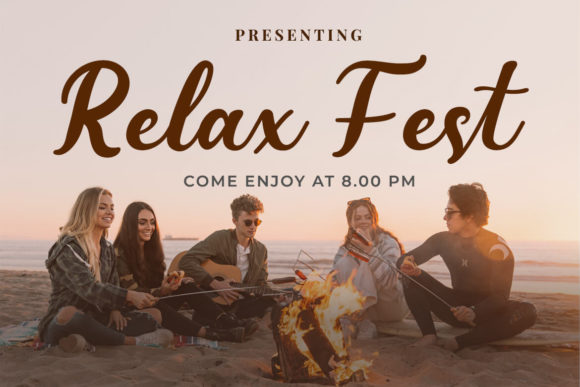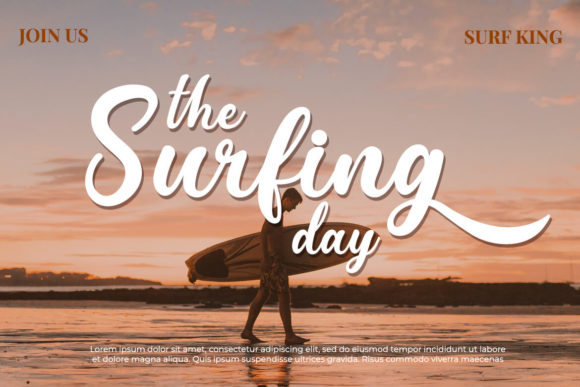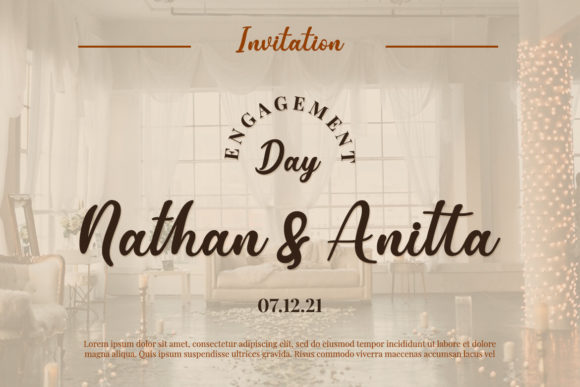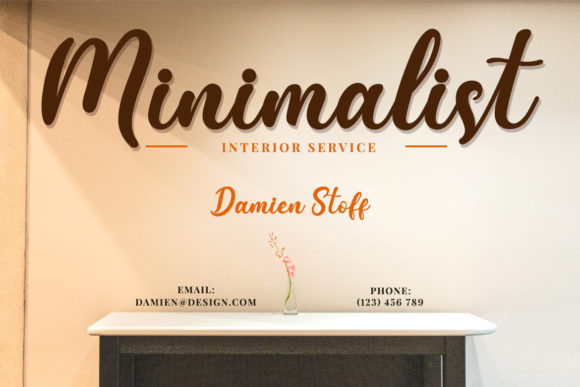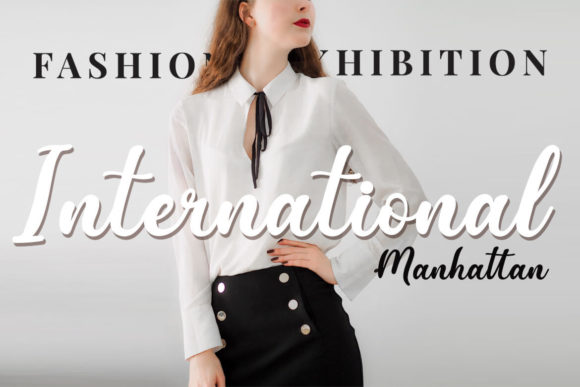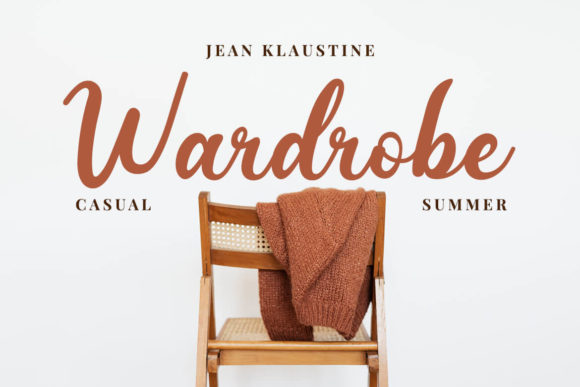
The Perfect Touch of Whimsy: Introducing the Coffistylove Font
As a designer, have you ever found yourself staring at a blank page, searching for the perfect font to bring your creative vision to life? I know I have. The moment of discovery when you stumble upon the perfect font is like a breath of fresh air – it’s exhilarating and sets the tone for a beautiful design. For me, that moment came when I discovered the enchanting Coffistylove Font.
This delicate, elegant, and flowing handwritten font is a true masterpiece. With its beautiful and well-balanced characters, Coffistylove Font is the perfect addition to any design project. Whether you’re creating a wedding invitation, a birthday card, or a branding package, this font is sure to add a touch of whimsy and sophistication. And with its PUA encoding, you’ll have access to all of the glyphs and swashes you need to create truly unique designs.
Coffistylove Font Key Features
- Font Family: Coffistylove Font offers a unique and modern script font style, perfect for creative and artistic projects.
- Unique Characteristics: Features a unique blend of modern and vintage elements, with a focus on elegance and sophistication.
Coffistylove Font Review
As a designer, I was excited to dive into the Coffistylove Font and see if it would make my projects stand out. Here’s my honest review.
- ✨ The unique, cursive design is perfect for adding a touch of whimsy to headers and titles. It’s great for creating a friendly, approachable atmosphere.
- ✨ The font is highly legible, even at smaller sizes, making it suitable for a wide range of applications, from web design to print materials.
- ✨ The font’s high x-height gives it a balanced, modern look that works well in both digital and physical formats.
- ⚠️ While the font is legible, it may not be the best choice for large blocks of text, as the cursive design can make it difficult to read in long sections.
- ⚠️ The font may not be suitable for formal or professional applications, as its playful design may come across as too casual.
Overall, I think Coffistylove Font is a great addition to any designer’s toolkit. While it may have some limitations, its unique design and high legibility make it perfect for projects that require a touch of personality and charm.
Getting the Most Out of Coffistylove Font
For the best results, use Coffistylove Font in conjunction with high-quality images and a clean design. This font is ideal for coffee shop branding, coffee-themed designs, and any project that requires a warm and inviting tone.
Coffistylove Font is perfect for:
- Coffee shop branding and marketing materials.
- Coffee-themed designs, such as coffee cup designs or coffee-related illustrations.
Alternatives to Coffistylove Font
Playfair Display is an elegant, high-end serif font ideal for luxury brands, fine art, and high-end publications. It has a sophisticated feel and is perfect for creating a sense of opulence and refinement.
Compared to Coffistylove Font, Playfair Display has a more formal and traditional look, while Coffistylove Font has a more playful and vintage feel.
Alex Brush is a beautiful, handwritten font perfect for creating a personal and emotive connection with your audience. It’s ideal for use in advertising, social media, and other marketing materials where you want to convey a sense of warmth and approachability.
Alex Brush has a more relaxed and casual feel compared to Coffistylove Font, which has a more stylized and ornate look.
Great Vibes is a modern, elegant script font perfect for creating a sense of sophistication and refinement. It’s ideal for use in high-end branding, advertising, and publishing.